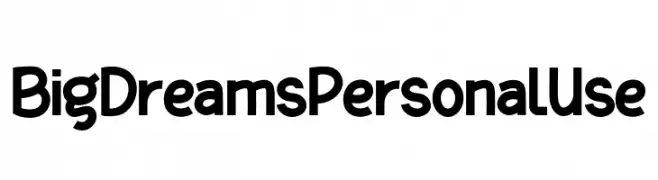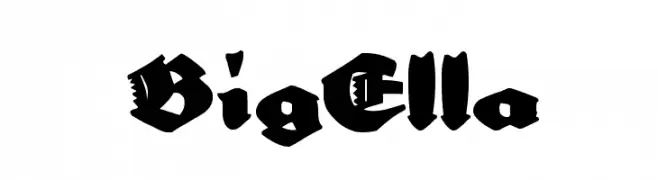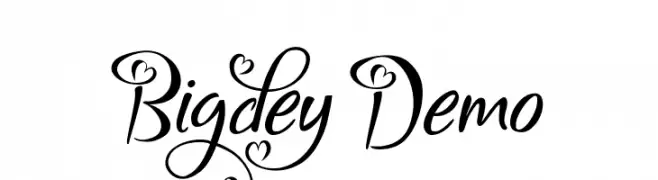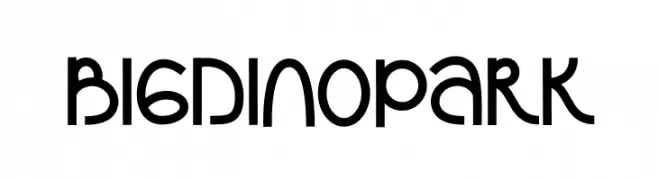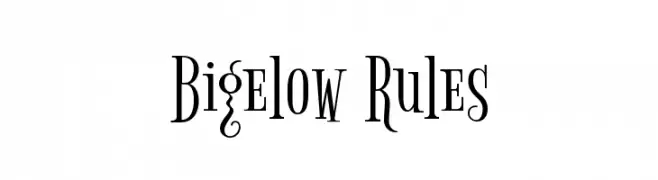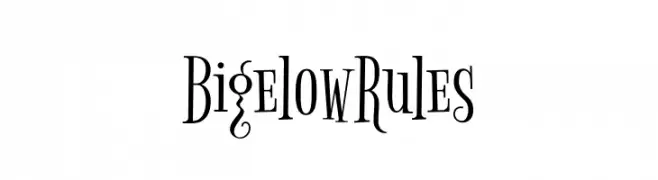
A playful, bold font with rounded, whimsical characters.
A playful and whimsical font with rounded, consistent strokes and unique character designs.
A bold, condensed font with a modern and impactful style.
An elegant script font with flowing cursive style and intricate swashes.
A dot matrix style font with a retro-tech appearance.
A bold, geometric font with a modern and clean design.
A bold, blackletter-inspired font with dramatic strokes and ornate details.
A tall, elegant font with playful, whimsical elements and subtle serifs.
A whimsical and decorative font with exaggerated serifs and playful strokes.